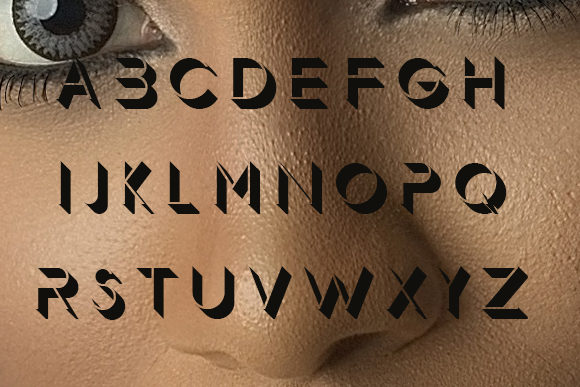
Introducing Demode Font: Elevate Your Designs with a Nostalgic Retro Twist
In the realm of typography, fonts play a pivotal role in setting the tone and aesthetic of any design project. Whether you’re working on a branding campaign, crafting a unique logo, or simply experimenting with creative typography, the right font can make all the difference. This is where Demode Font comes into play—a straightforward, yet fashionably retro look font designed to infuse your designs with a nostalgic feel.
What is Demode Font?
Demode Font is a stylish typeface that effortlessly blends simplicity with a vintage flair. It is available in two versatile versions: Regular and Negative. This dual offering allows designers to experiment with different styles and applications, making it incredibly versatile for various design projects. The font’s design is characterized by clean lines, classic proportions, and a distinctive retro charm that instantly captures attention.
Key Features of Demode Font
- Retro Aesthetic: Demode Font boasts a unique retro look that can add a nostalgic touch to any design. Its classic style ensures that your projects stand out with a timeless appeal.
- Versatility: Available in Regular and Negative versions, Demode Font offers flexibility in design. The Negative version provides an interesting alternative for projects requiring a bold, standout text element.
- Legibility: Despite its vintage inspiration, Demode Font maintains excellent legibility, making it suitable for both headlines and body text.
- Ease of Use: Designed with the user in mind, Demode Font is easy to integrate into any design project, whether you’re working in graphic design software or crafting digital content.
Applications of Demode Font
The applications of Demode Font are vast and varied, catering to the needs of different designers and crafters. Here are some of the most notable uses:
- Branding and Logos: The distinctive retro look of Demode Font makes it an excellent choice for brands aiming to evoke a sense of nostalgia or vintage charm.
- Graphic Design: From posters and flyers to digital banners and social media graphics, Demode Font can add a unique stylistic element to your graphic design projects.
- Crafting and DIY Projects: Crafters working on personal projects or selling their wares online can use Demode Font to create attractive, professional-looking labels, tags, and promotional materials.
- Digital Content: Bloggers, content creators, and digital marketers can use Demode Font to create visually appealing headings, quotes, and highlights in their online content.
Tips for Using Demode Font Effectively
To maximize the impact of Demode Font in your designs, consider the following tips:
- Mix and Match: Experiment with both the Regular and Negative versions of Demode Font to create visual contrast and hierarchy in your designs.
- Play with Colors: The retro vibe of Demode Font pairs well with bold, vibrant colors. Don’t be afraid to experiment with color schemes that enhance its vintage appeal.
- Combine with Images: Use Demode Font in conjunction with vintage or texture-rich images to amplify the nostalgic feel of your design.
- Keep it Simple: While Demode Font has a lot of character, ensure that your overall design remains uncluttered and focused. Balance is key to creating an effective design.
Demode Font is a valuable addition to any designer’s toolkit, offering a unique blend of retro charm and versatility. Whether you’re a professional designer, a small business owner, or a crafting enthusiast, this font can help you achieve a distinctive look that sets your projects apart. With its straightforward yet fashionable design, Demode Font is poised to become a go-to choice for those looking to infuse their designs with a nostalgic feel.